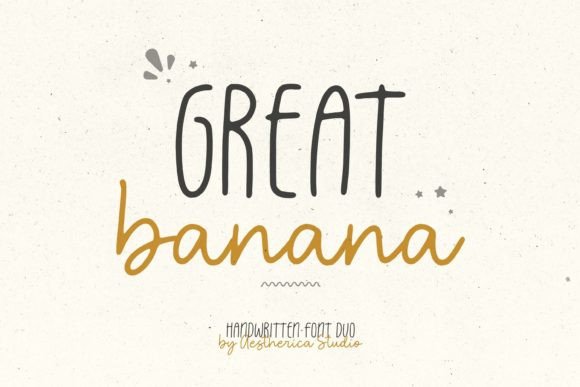
Introducing the Great Banana Font Collection, the ultimate choice for those seeking stunning script fonts that are as captivating as they are versatile. Created by the talented team at Aestherica Studio, this font duo offers a modern handwritten look that will elevate any project to new heights of creativity and elegance.
With its seamless blend of regular and script typefaces, the Great Banana Font Collection is a must-have for all your branding needs. Whether you're designing a logo, working on wedding invitations, or creating eye-catching social media posts, these fonts will add that perfect touch of personalization and sophistication.
Imagine the impact your advertisements will have when adorned with the Great Banana Font Collection. These fonts will effortlessly grab attention, leaving a lasting impression on your audience and enhancing your brand's visibility. From product packaging to label designs, the possibilities are endless when you harness the power of this font duo.
Photographers and artists will rejoice at the Great Banana Font Collection's ability to transform their work. With just a few clicks, you can add a unique watermark or create stunning typography overlays that will make your images truly stand out. The result? A visual masterpiece that will captivate and inspire.
Invitations and stationery are no exception to the Great Banana Font Collection's charm. Whether you're planning a wedding, a party, or a special event, these fonts will infuse your designs with a sense of elegance and allure. Your guests will be enthralled by the beautiful calligraphy and will eagerly RSVP to your unforgettable affair.
But the Great Banana Font Collection isn't just about aesthetics. It's about capturing emotions and telling stories. With its handwritten taste, these fonts evoke a sense of warmth, authenticity, and human connection. They allow your words to resonate with your audience on a deeper level, making them feel seen, heard, and understood.
In conclusion, the Great Banana Font Collection is a game-changer for anyone seeking to elevate their designs and leave a lasting impression. From branding projects to social media posts, this font duo offers endless creative possibilities. Step into a world of elegance and creativity and let the Great Banana Font Collection be your secret weapon for success.